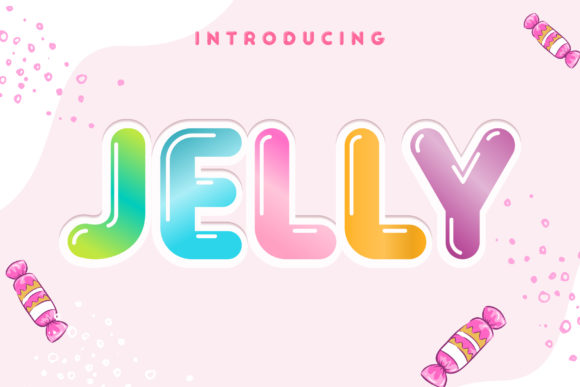
Introducing Jelly Font, the perfect addition to your font collection! Created by Fox7, this cute and fun display font is sure to bring a touch of whimsy to your designs.
But Jelly Font isn't just adorable - it's also incredibly versatile. Whether you're designing a website, a logo, or a packaging label, this font has the potential to take your creation to the next level. In fact, it's the best font for sweater design, as its playful style is sure to stand out on any cozy winter knit.
Looking for a font that's perfect for packaged food products? Look no further than Jelly Font! With its friendly and approachable vibe, this font is ideal for use on snack packages, milk cartons, yogurt cups, jars of jelly, and more.
But don't let its playful nature fool you - Jelly Font is a professional-grade typeface that will bring a touch of sophistication to any project. So whether you're designing for a big client or a personal project, this font is sure to impress.